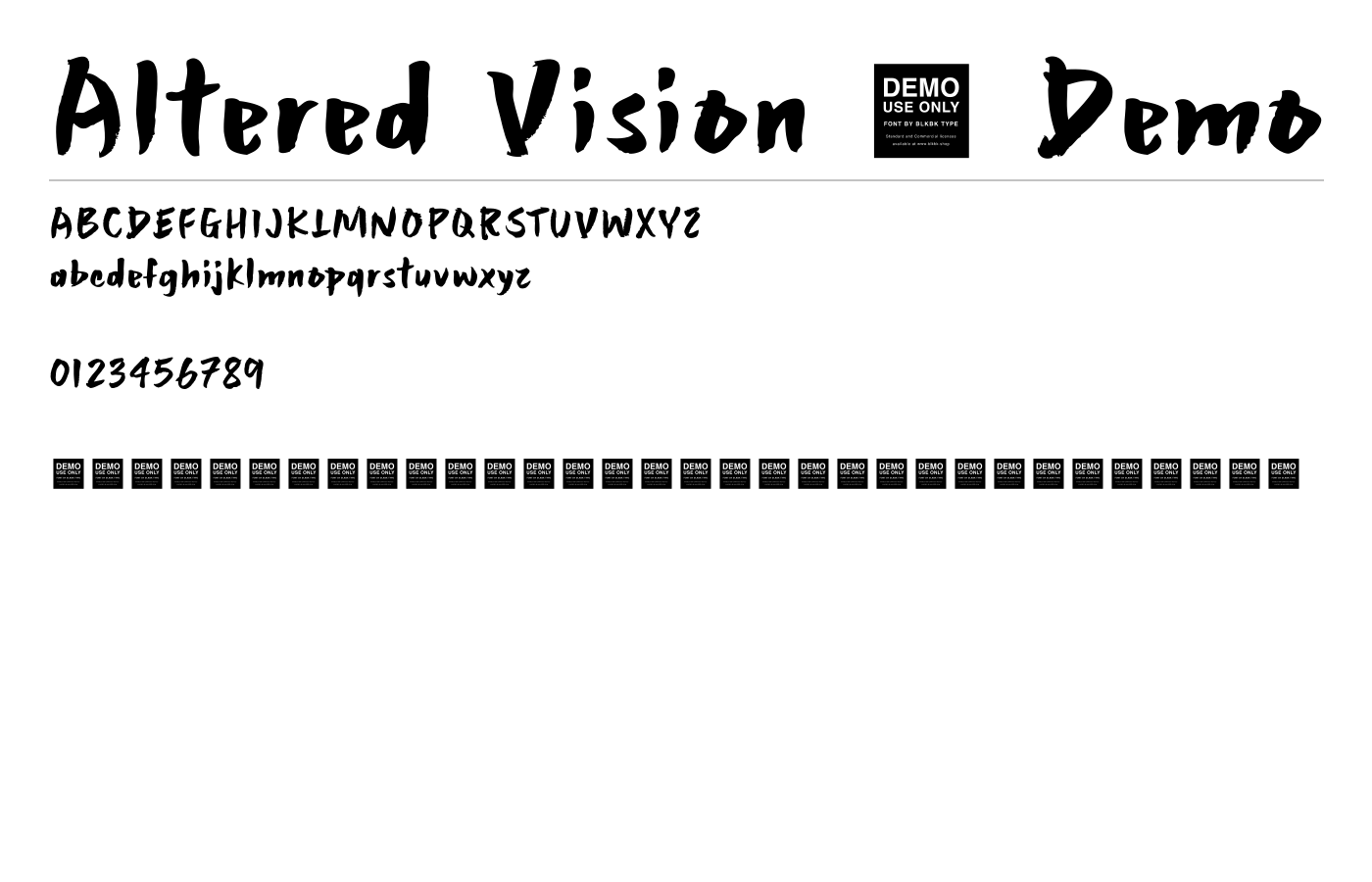
Altered Vision is a bold, hand-drawn script font with a playful and informal character, featuring irregular strokes and a brush-like texture that gives it a lively, artistic feel. This font works well for creative projects, posters, and casual branding where a personal, energetic touch is desired. Its distinct style is great for making headlines or logos stand out with a unique, handcrafted vibe.
Altered Vision - Demo Font
About Altered Vision - Demo Font